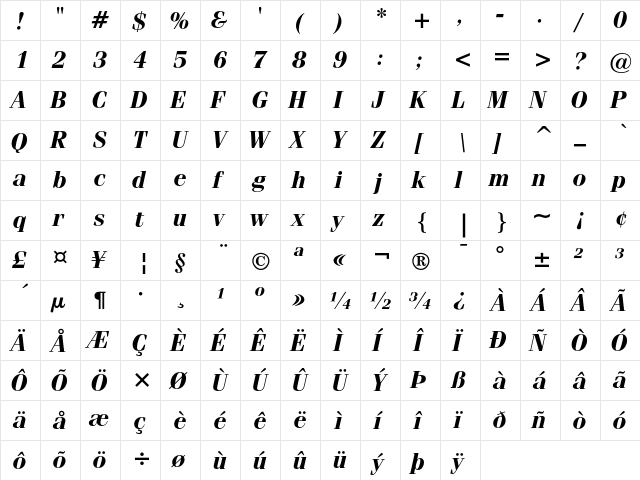
ITC Fenice Bold Italic
Design Context for ITC Fenice Typeface
ITC Fenice is a composed and adaptable typeface that performs quietly and consistently across a wide range of design contexts. The dynamic lean of this cut emphasises speed and emphasis in any layout. The heavy weight commands attention and anchors typographic hierarchies.
Pro Tip: Use ITC Fenice for emphasis, pull quotes, and subheadings where its slanted energy can add rhythm to the layout.